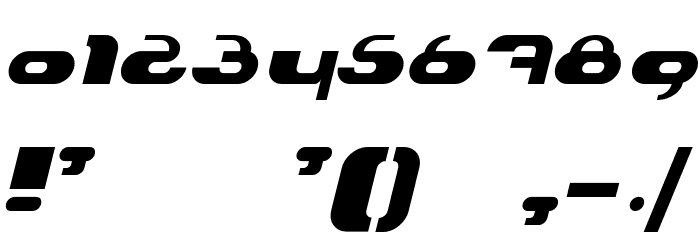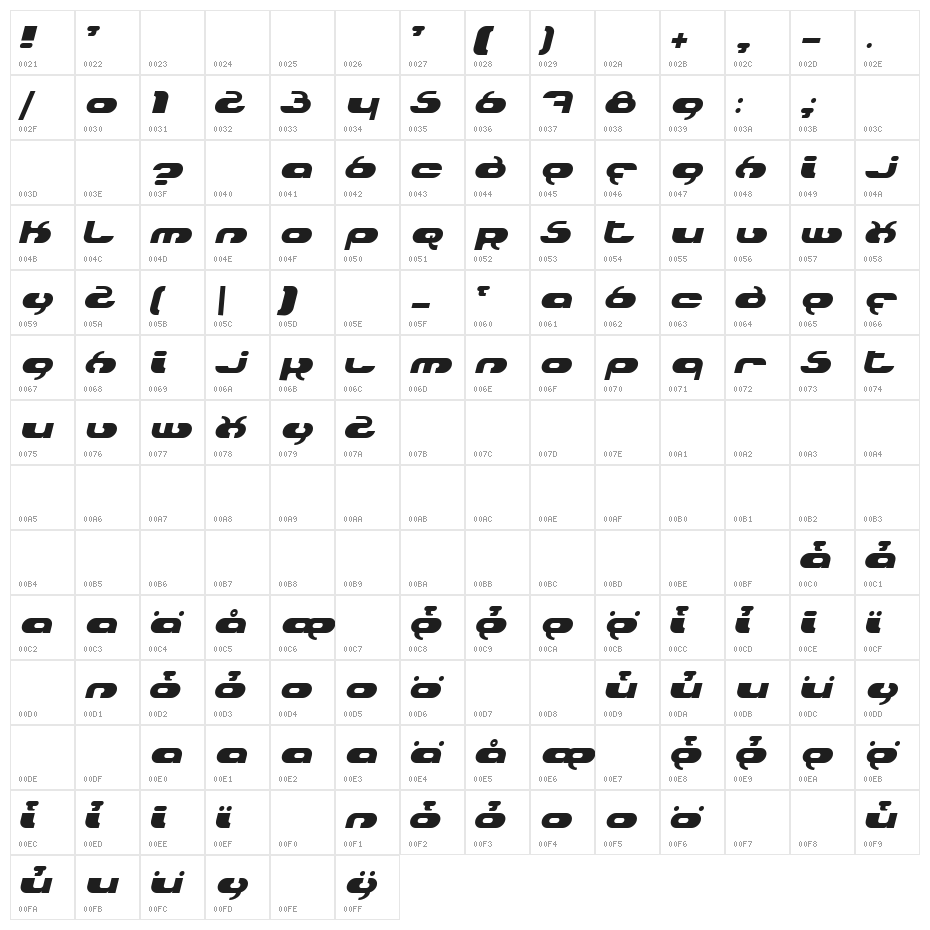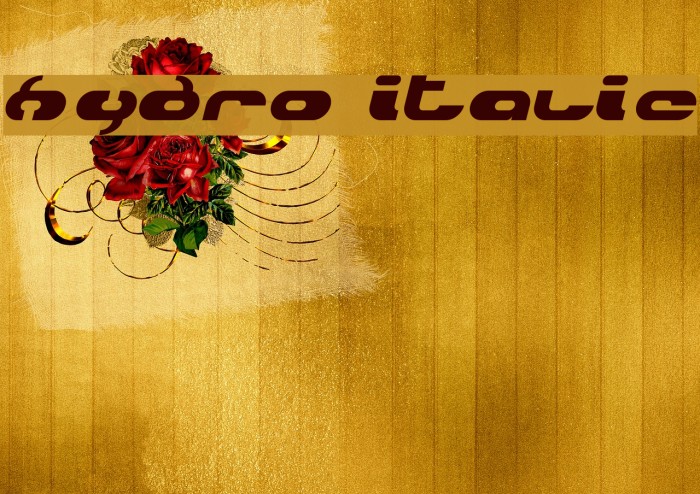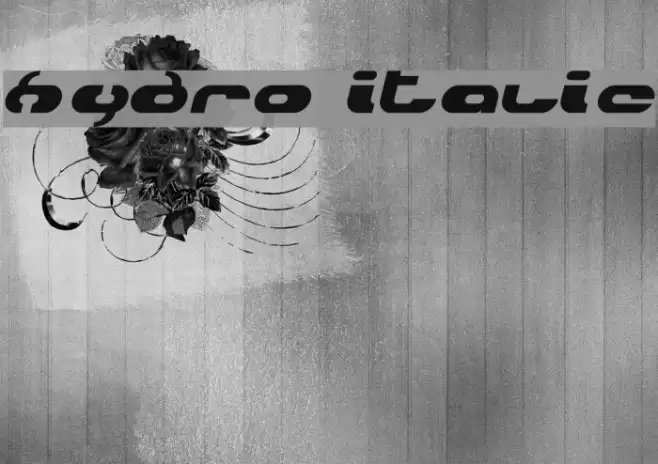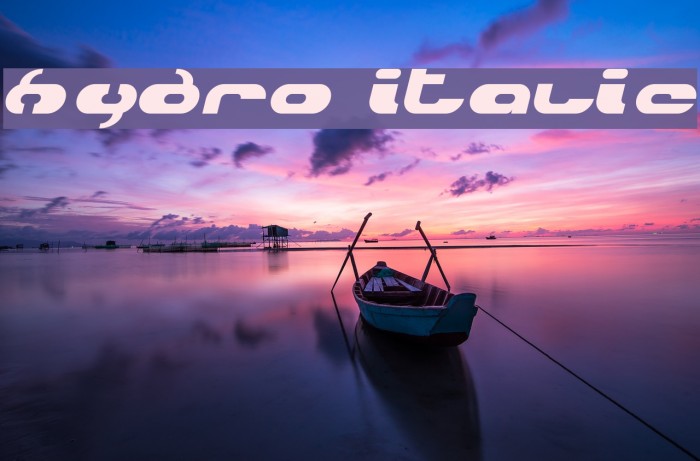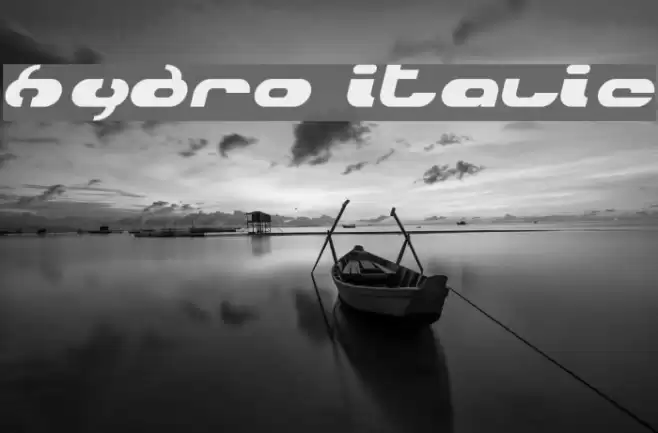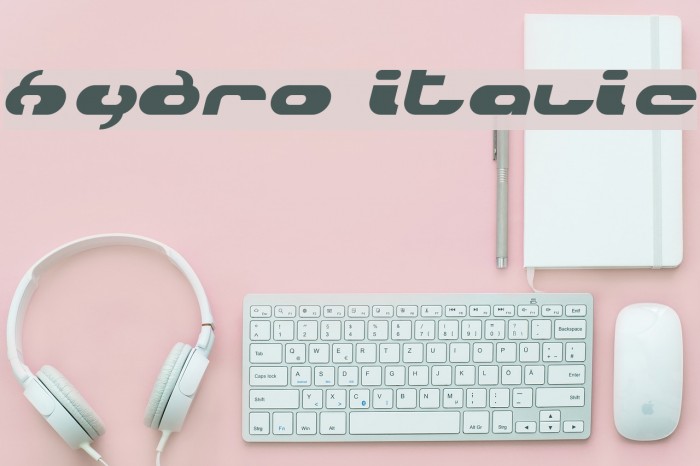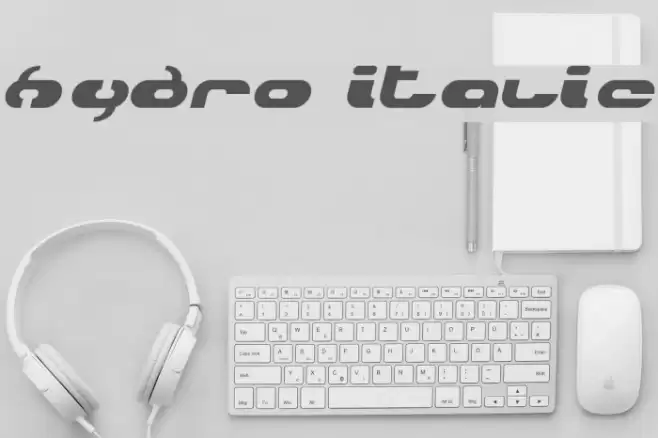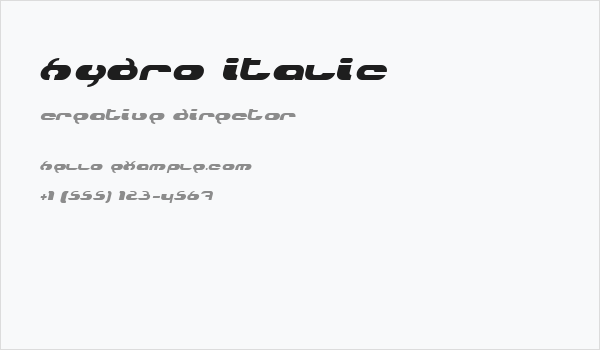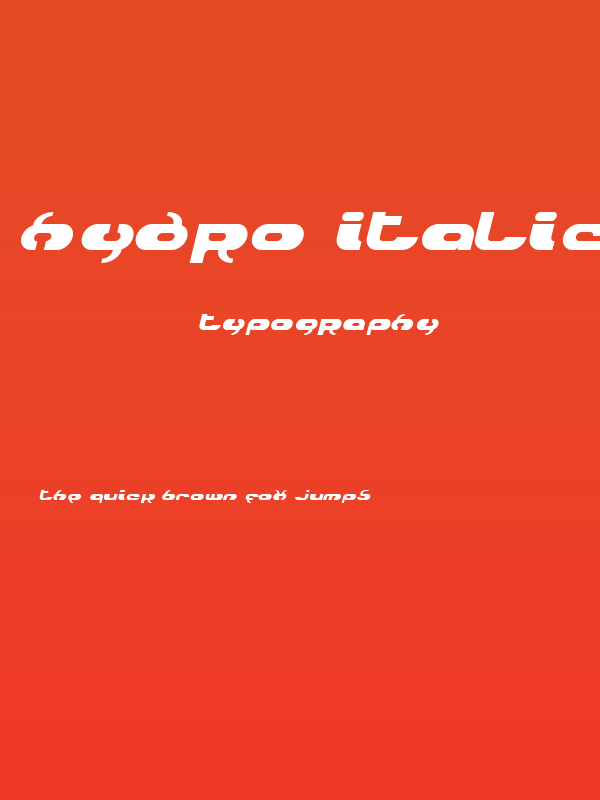
Hydro Italic Font
Hydro Italic Description
This font features a futuristic and bold design with a distinct italic slant, giving it a dynamic and forward-moving appearance. The characters are crafted with a unique blend of geometric shapes and smooth curves, creating a modern and sleek look. The uppercase and lowercase letters maintain a consistent style, with some letters having extended strokes that add to the font's distinctive character. The numerals are equally stylized, matching the overall aesthetic of the alphabet. Special characters are designed with the same attention to detail, ensuring a cohesive look across all glyphs. This font is ideal for projects that require a modern and edgy feel.
| Proposed Projects | Ideal for sci-fi themed designs, technology branding, video game titles, and modern advertising. |